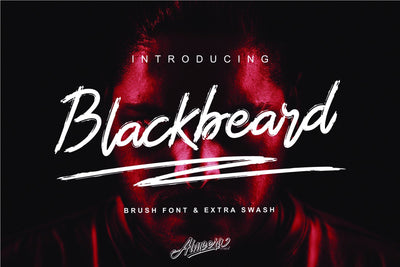
The Blackbeard | Brush Font
The Blackbeard is a striking brush font. It was designed to be combined with other typefaces perfectly. It allows you to create stunning hand-lettering brush in an instant.